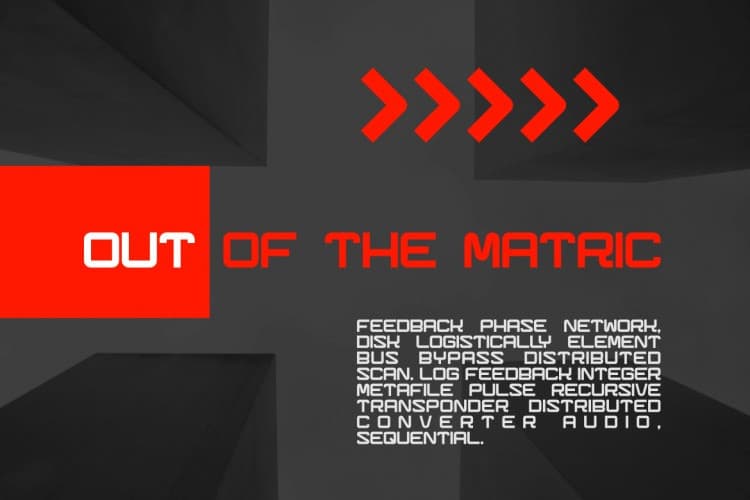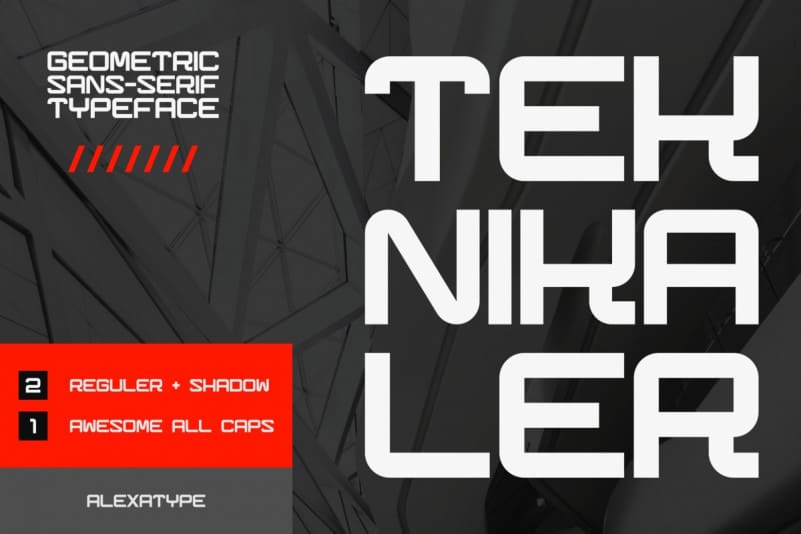
Teknikaler Display Font
Teknikaler Display Font is a display typeface that exudes optimism, joy, and whimsy. Made from font designer named Alexatype. It’s a geometric sans serif font with square size glyphs with rounded angle that perfect for modern technology article, poster, websites, and any promo material. It comes in all caps with two style, reguler and shadow. it’s perfect for logos, name card, magazine layouts, invitations, headers, or even large-scale artwork.